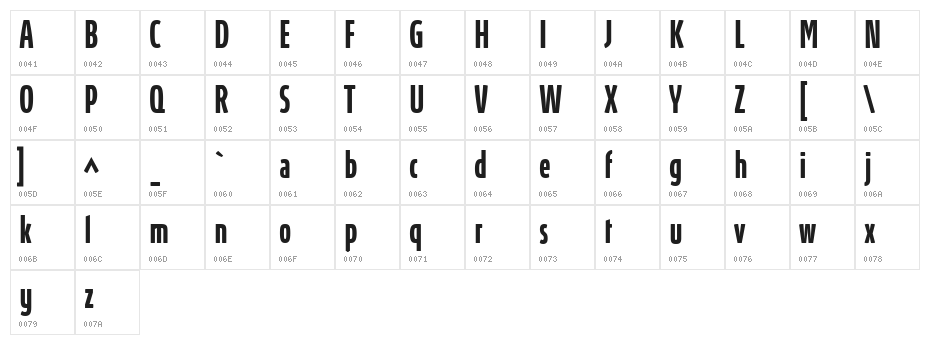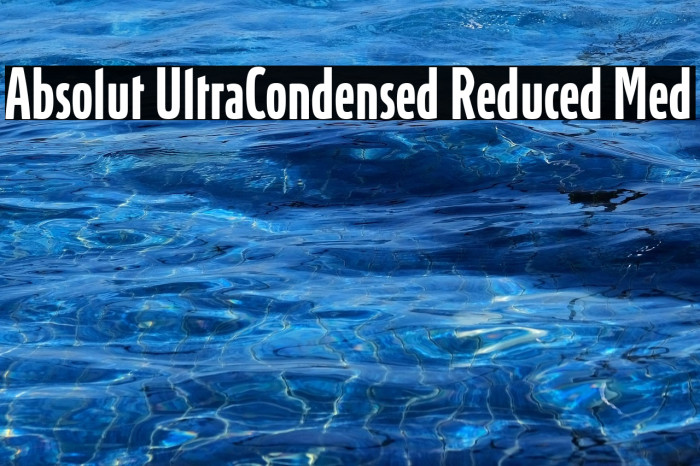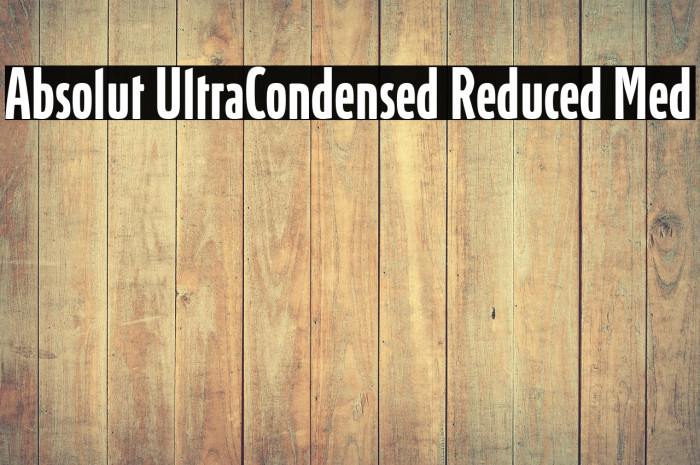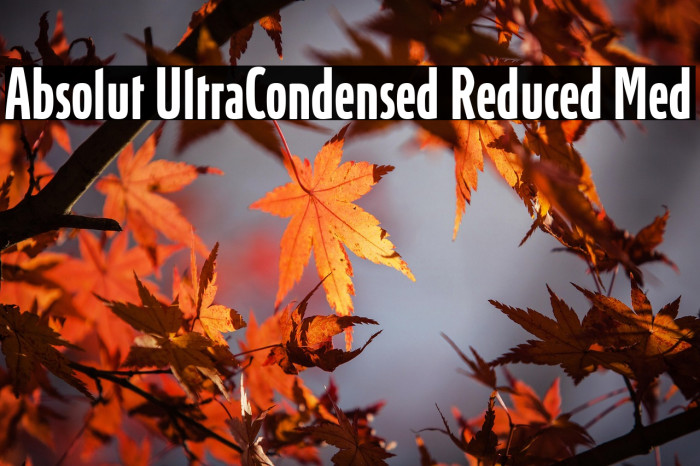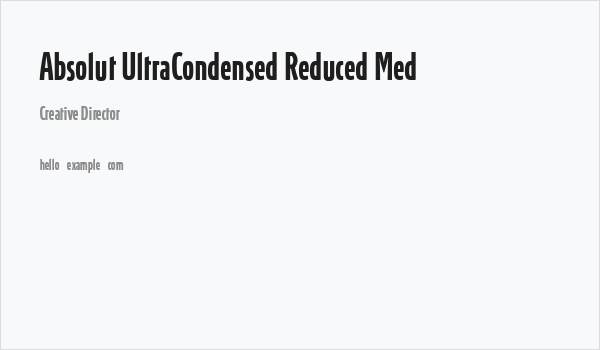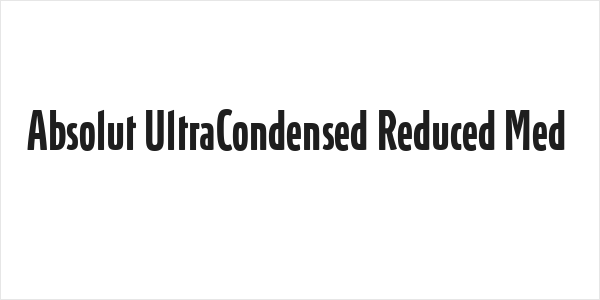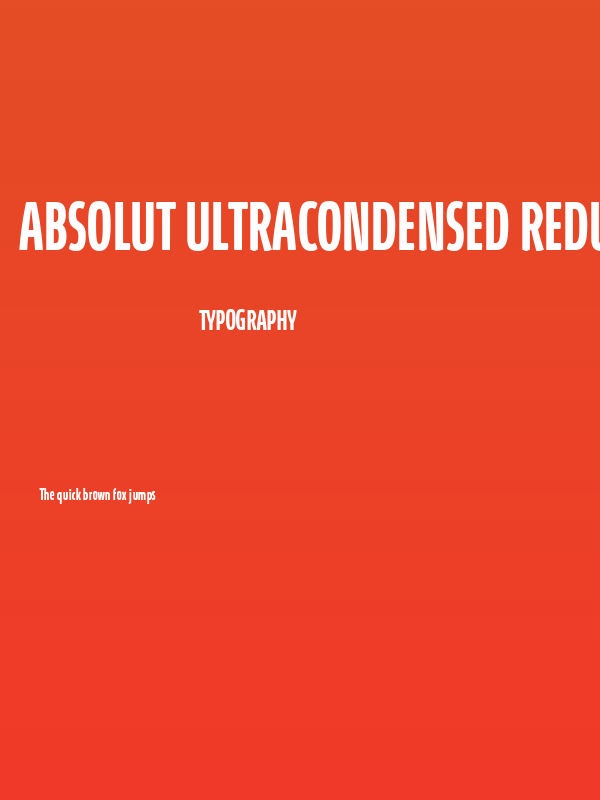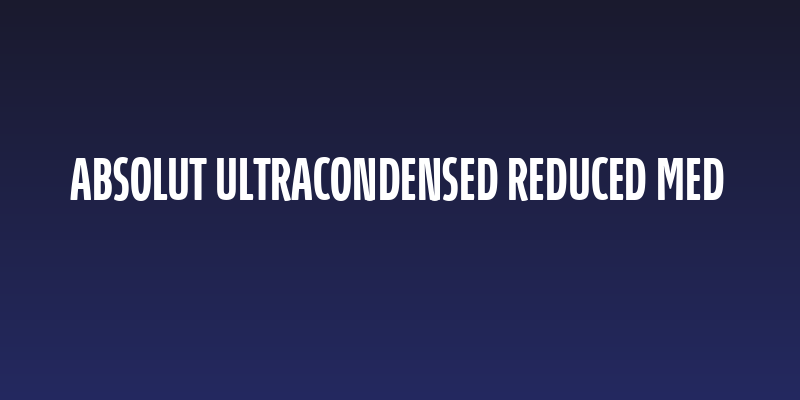
Absolut UltraCondensed Reduced Med Font
Absolut UltraCondensed Reduced Med Description
This font features a bold and ultra-condensed style, characterized by its tall and narrow letterforms. The uppercase and lowercase letters maintain a consistent height, contributing to a uniform appearance. The strokes are thick, providing a strong visual impact, while the spacing between characters is tight, enhancing the condensed effect. The overall design is modern and assertive, making it suitable for attention-grabbing headlines and impactful designs. The font's simplicity and boldness make it versatile for various creative projects.
Proposed ProjectsIdeal for headlines, posters, branding, and any design requiring a bold statement.